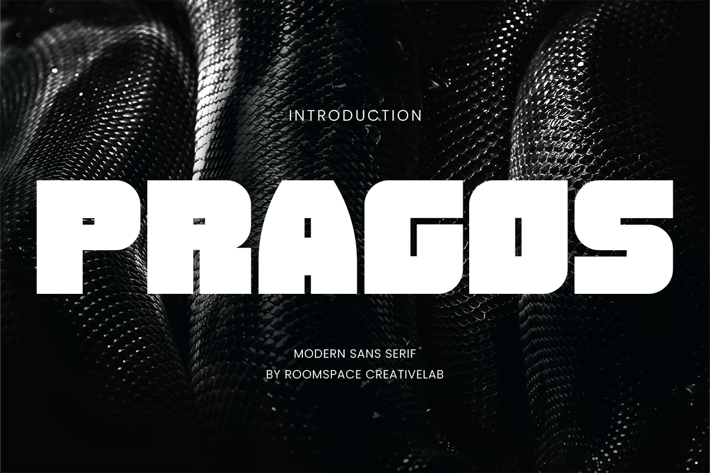
Pragos - Logo Headline Modern Fonts
Pragos is a bold modern sans serif font designed to make a powerful statement. With its strong geometric shapes, clean edges, and impactful style, this typeface brings confidence and clarity to your designs. Perfect kerning and balanced proportions ensure versatility across projects, from bold headlines to sleek branding. Ideal for logos, posters, packaging, social media, editorial layouts, and modern design projects, Pragos helps your work stand out with strength and style. Add Pragos to your collection today and create designs that demand attention.